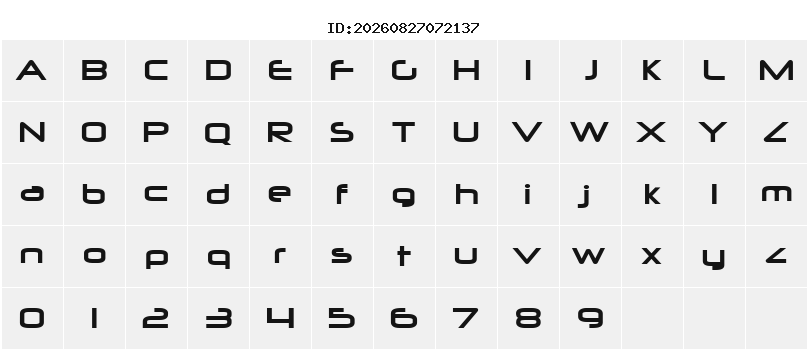
497-CAI978 Preview
About 497-CAI978.ttf
497-CAI978.ttf is a modern, elegant sans-serif font designed for ultimate readability and visual harmony. Perfect for branding, headlines, web design, and print materials.